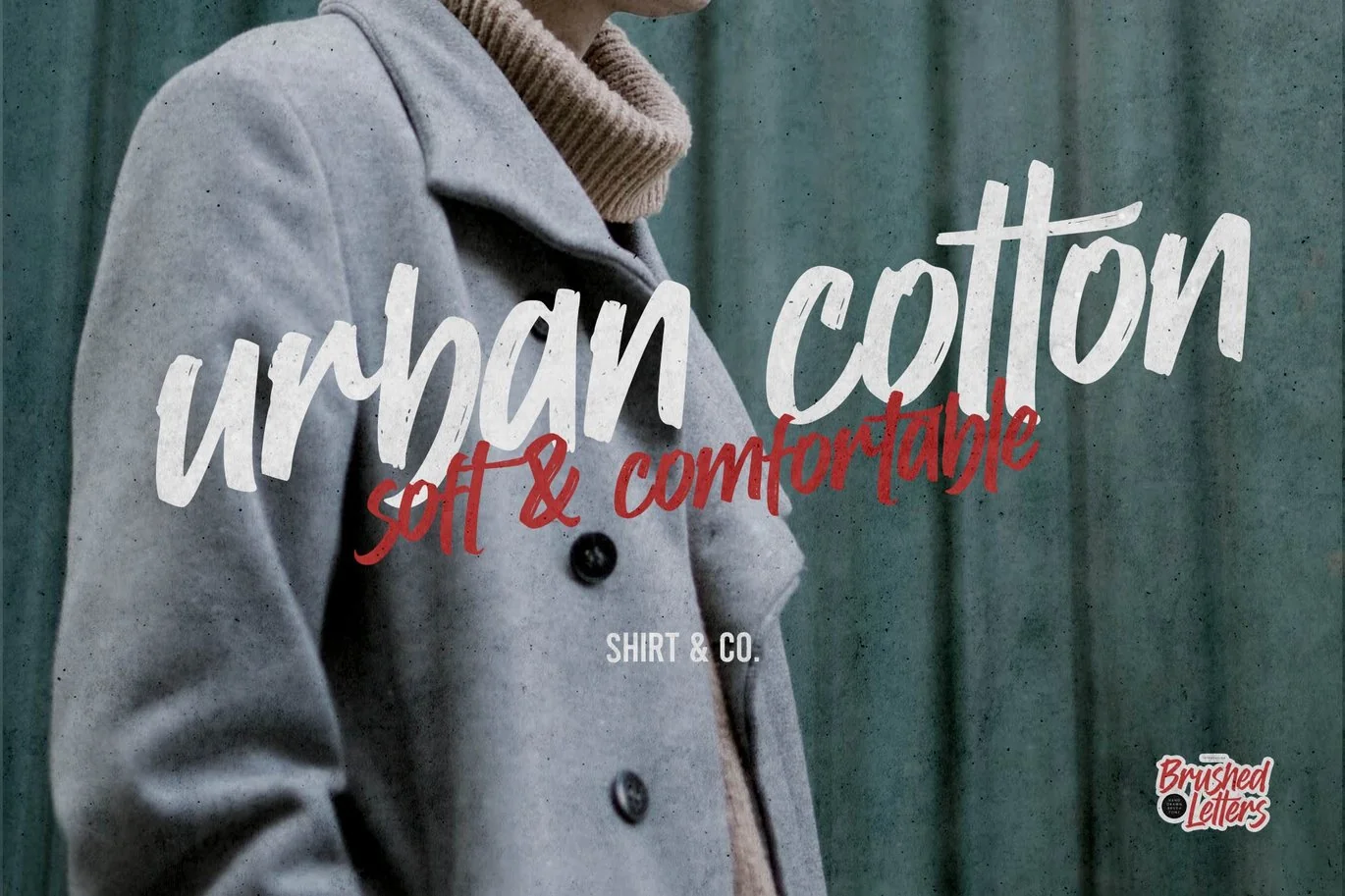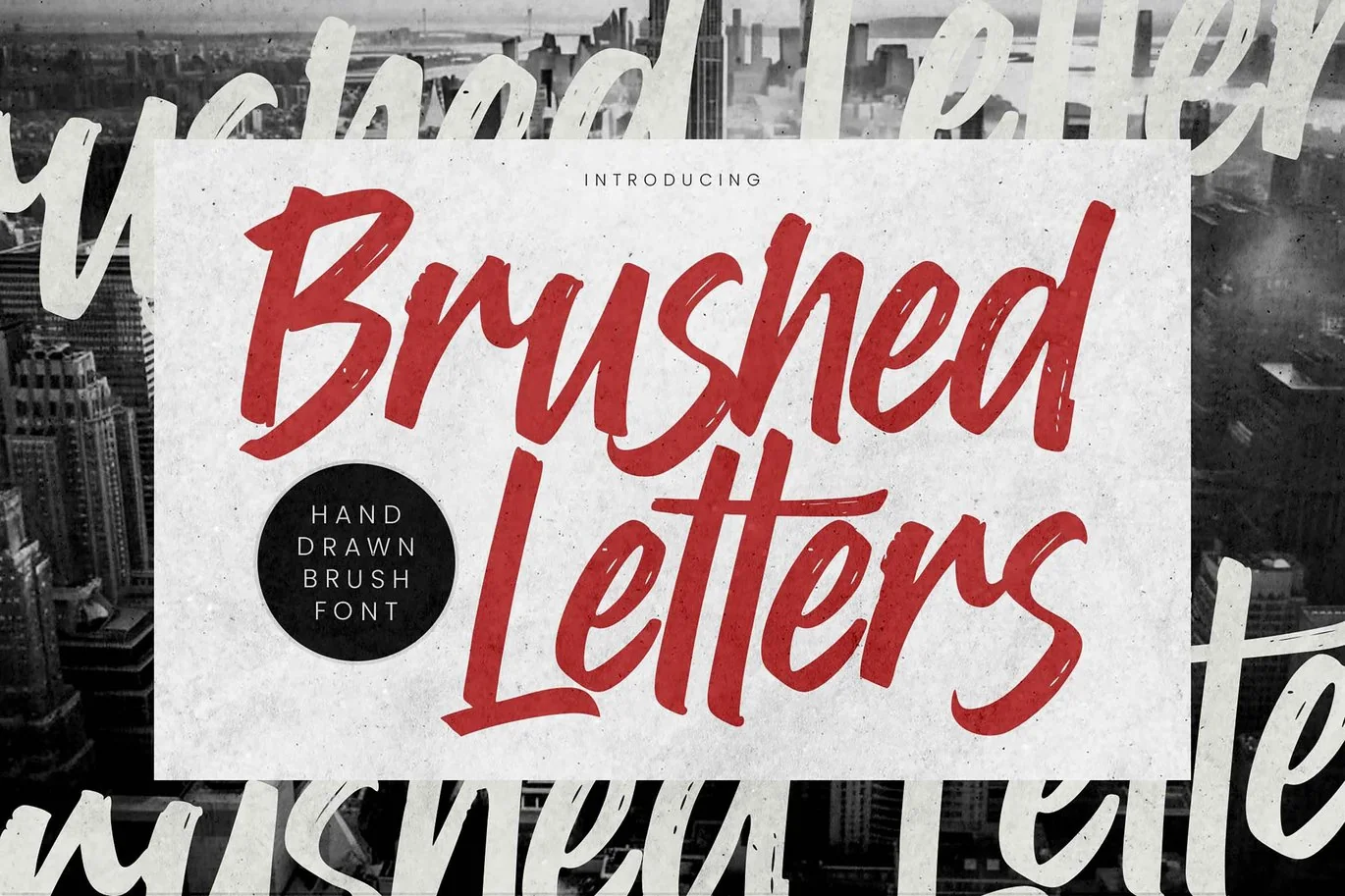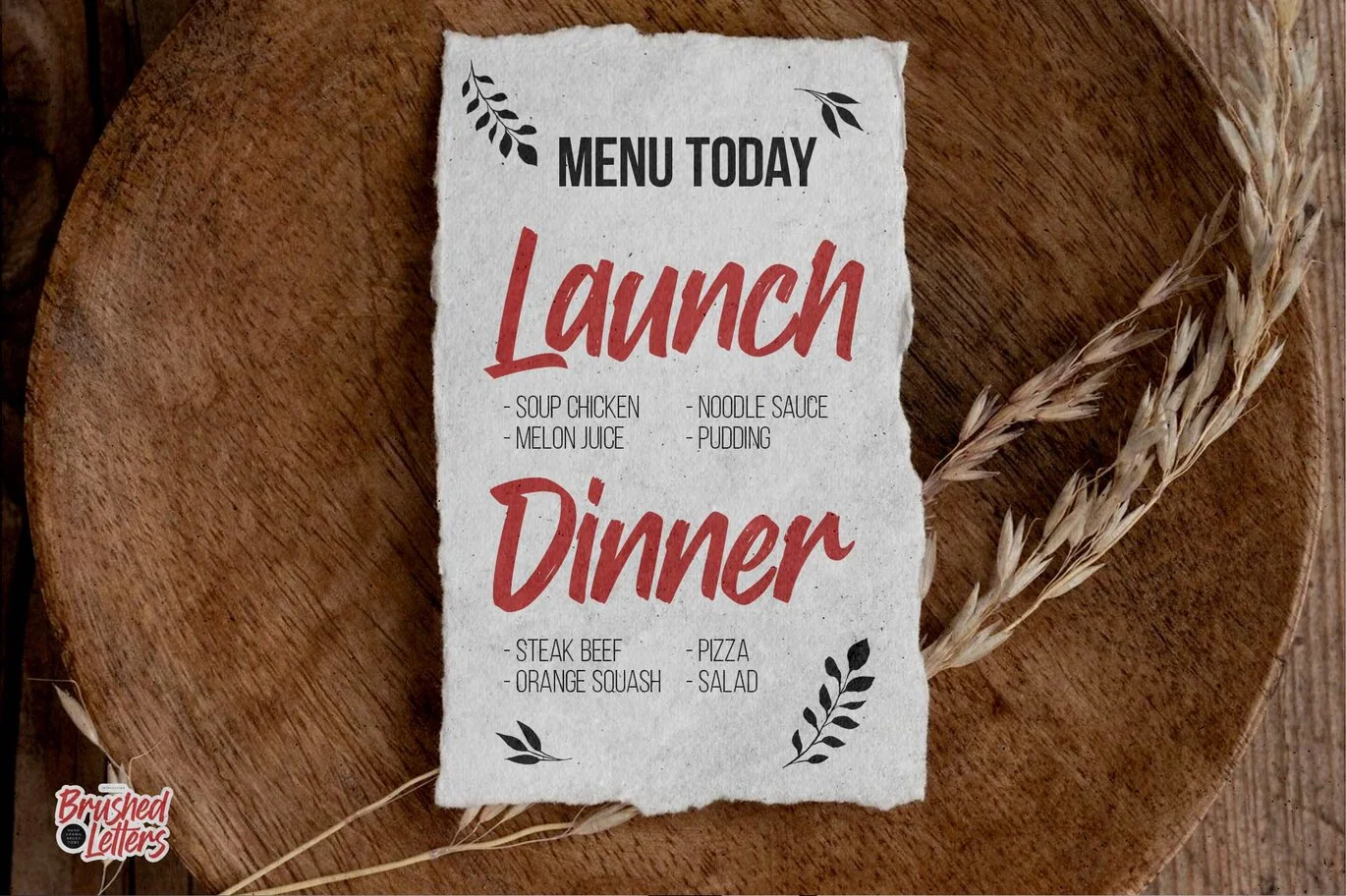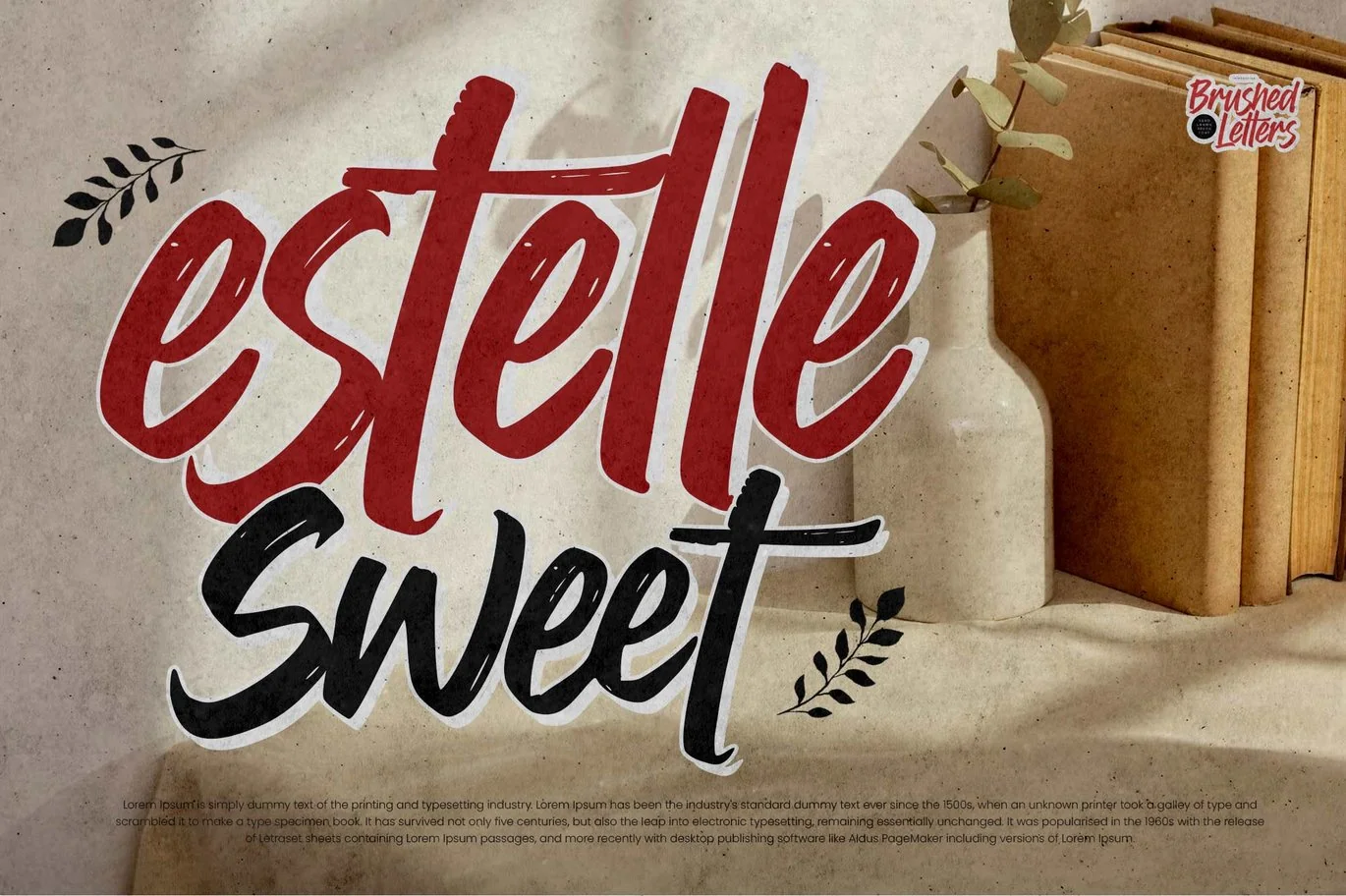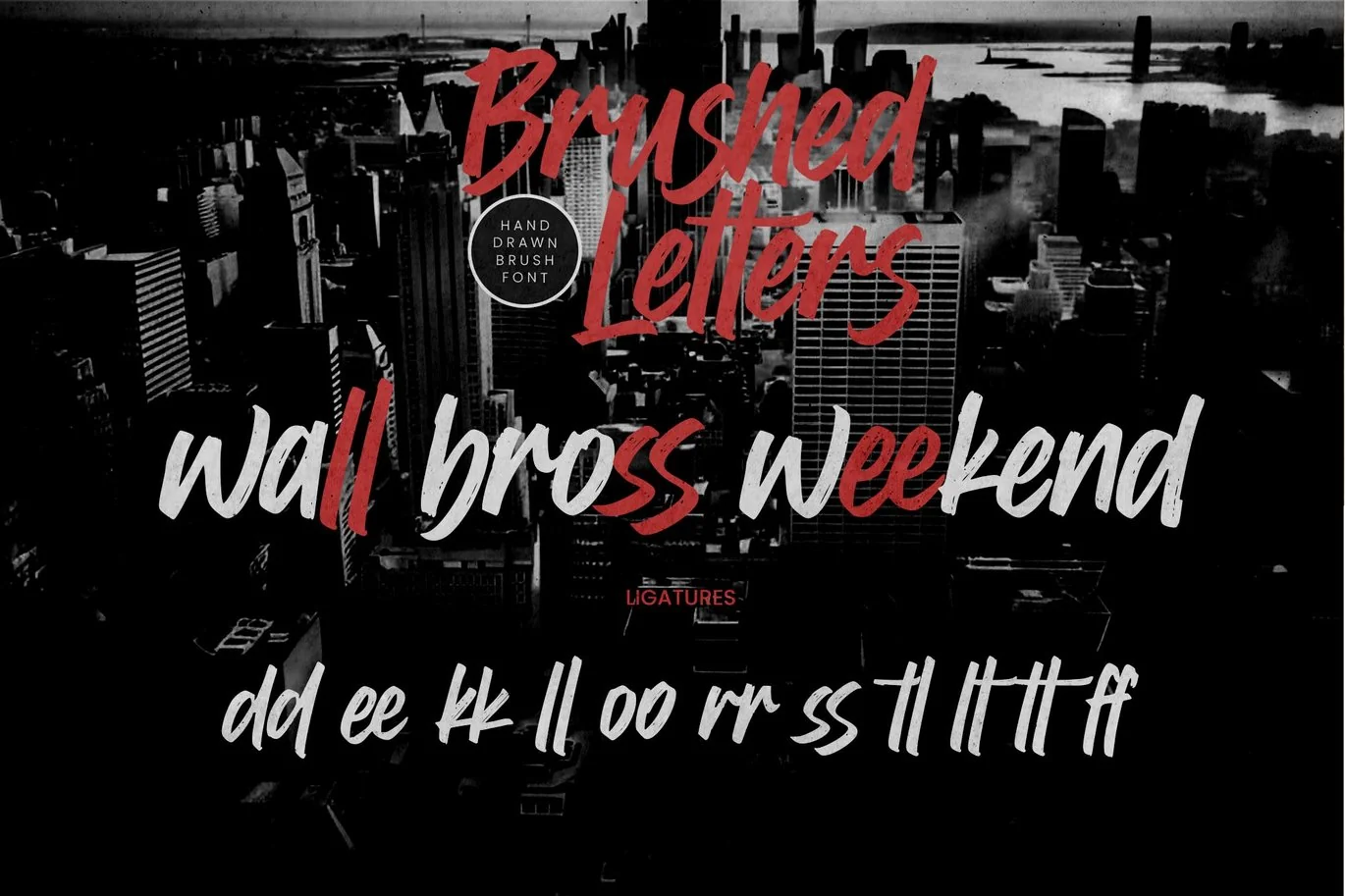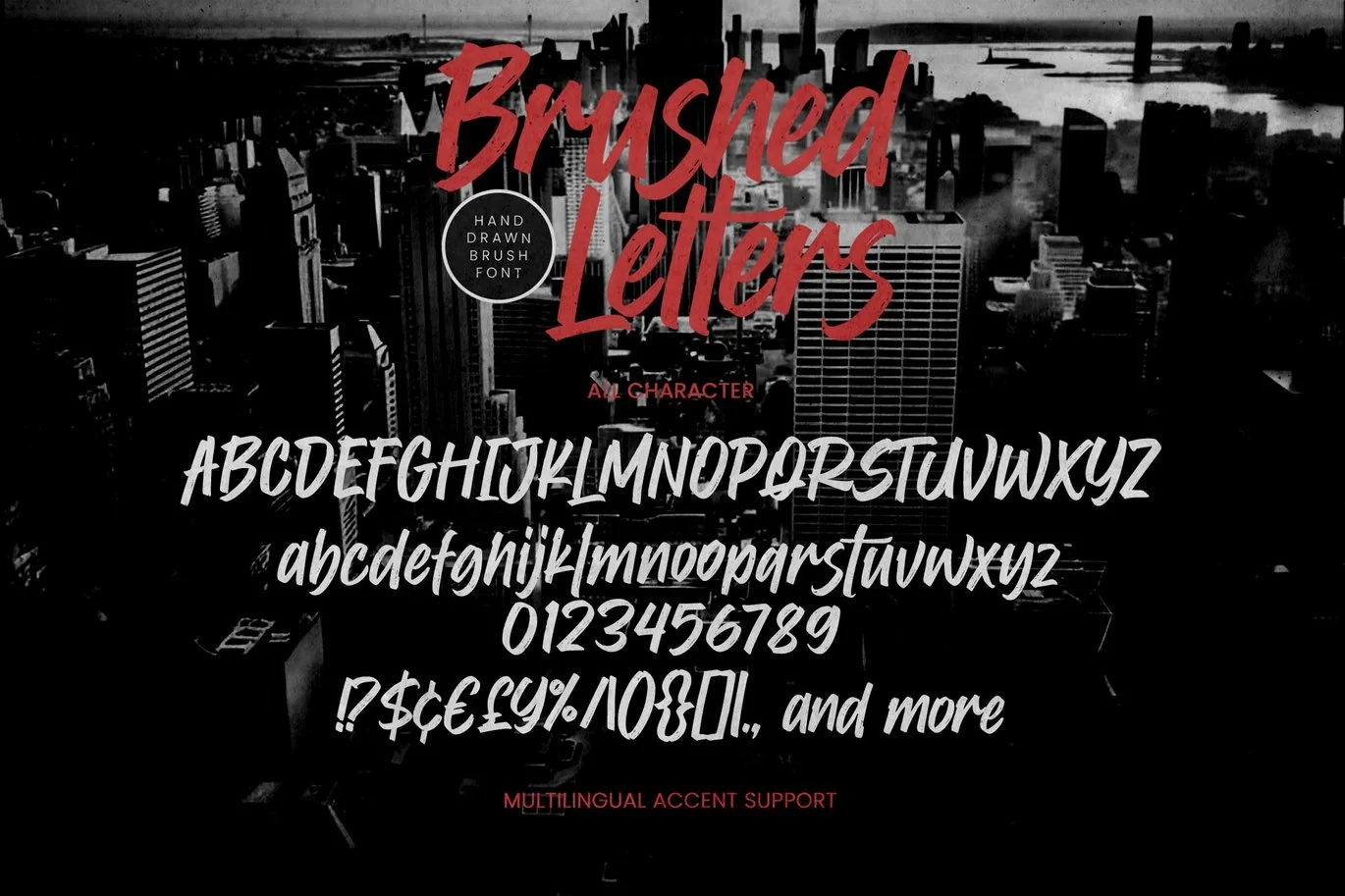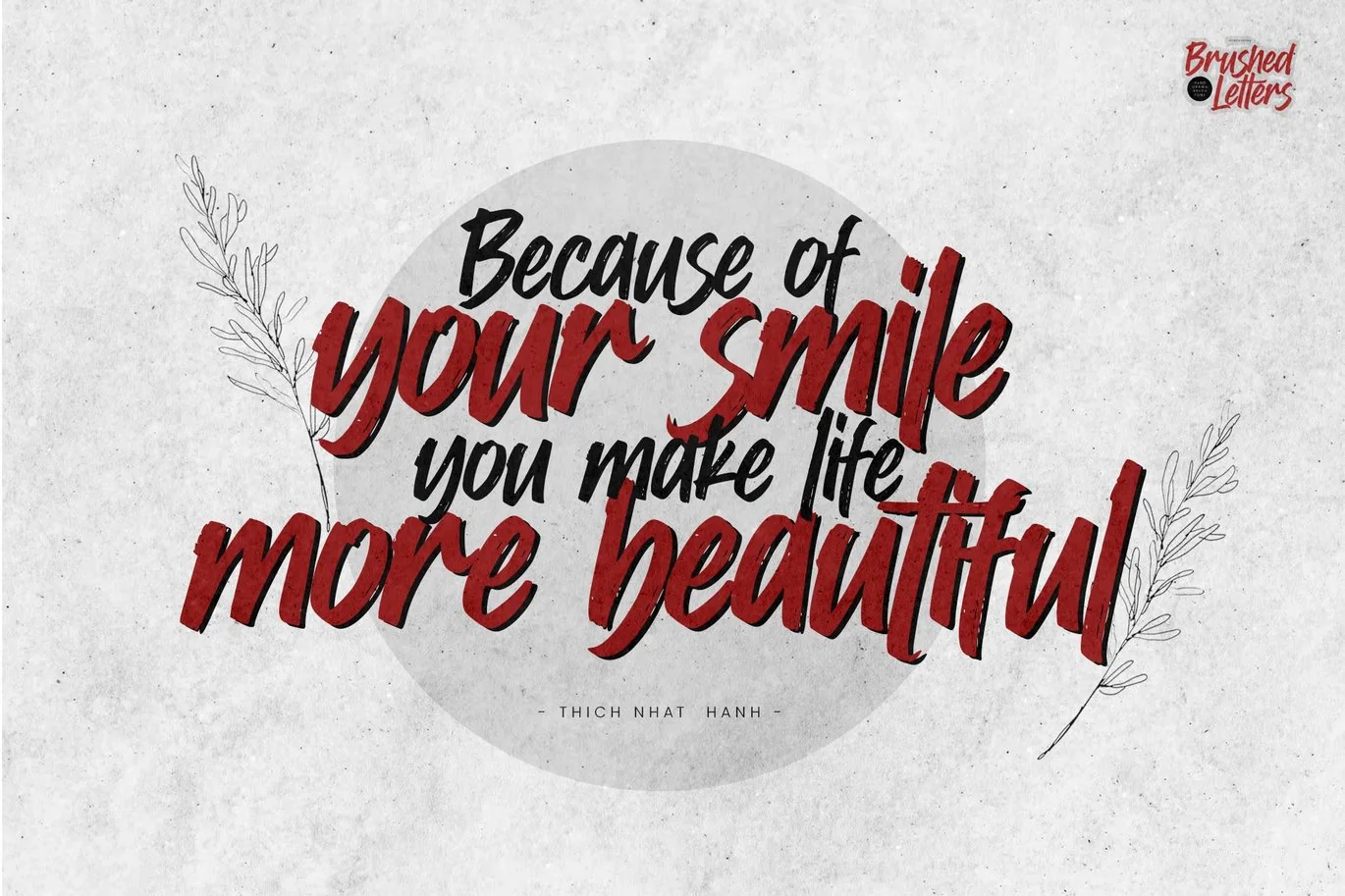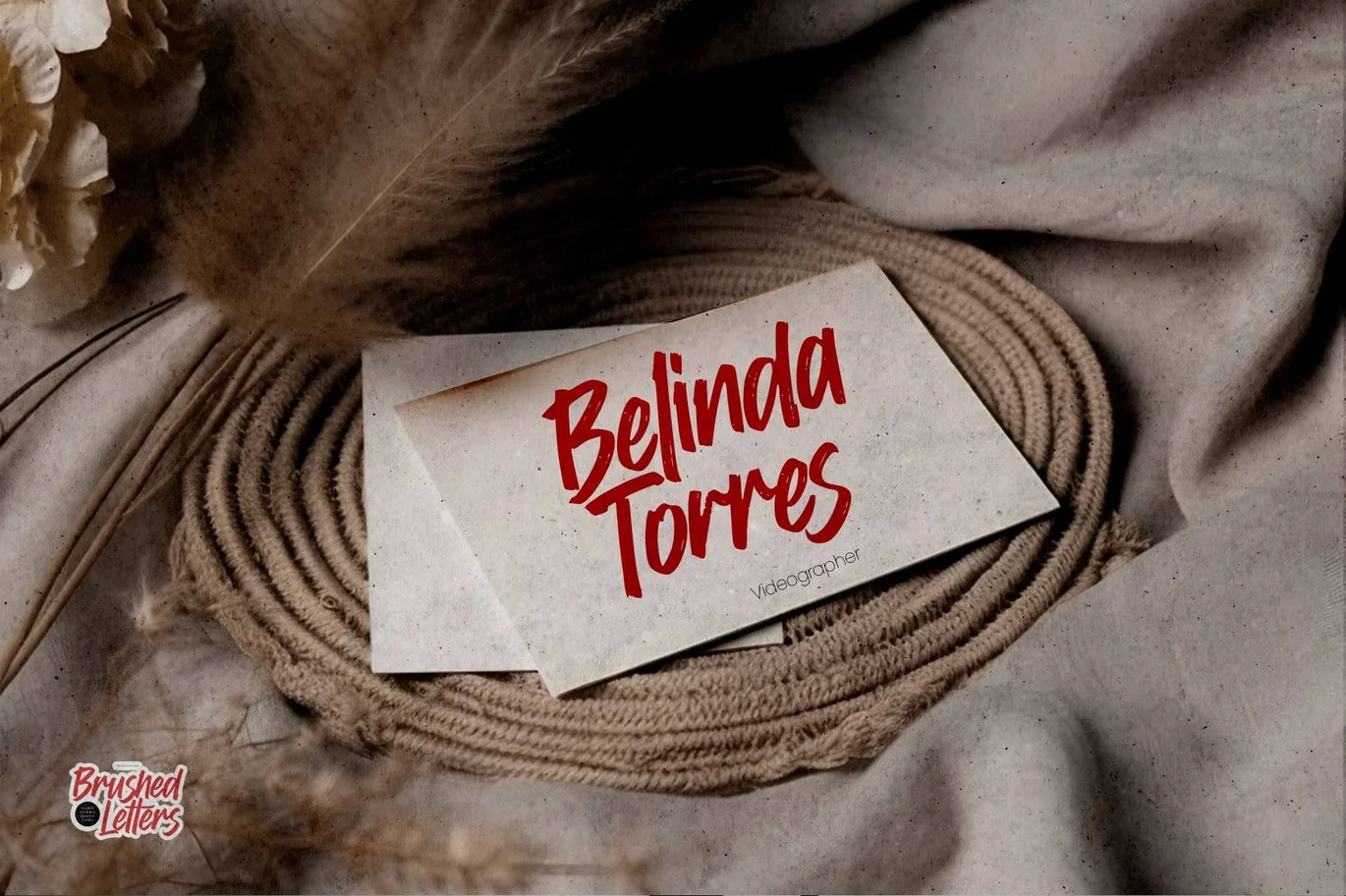
Brushed Letters – Hand Drawn Brush Font
Hello Everyone, introduce our new product Font Brushed Letters This Is Hand Drawn Brush Font.This is a Textured Natural Brush Style and classy style.
This font Brushed Letters is great for your next creative project such as logos, printed quotes, invitations, cards, product packaging, headers, Logotype, Letterhead, Poster, Design this font is great for your creative projects such as watermark on photography, and perfect for logos & branding, invitation,advertisements,product designs, stationery, wedding designs,label ,product packaging, special events or anything that need handwritting taste.
That is has charming, authentic and relaxed characteristic more natural look to your text.